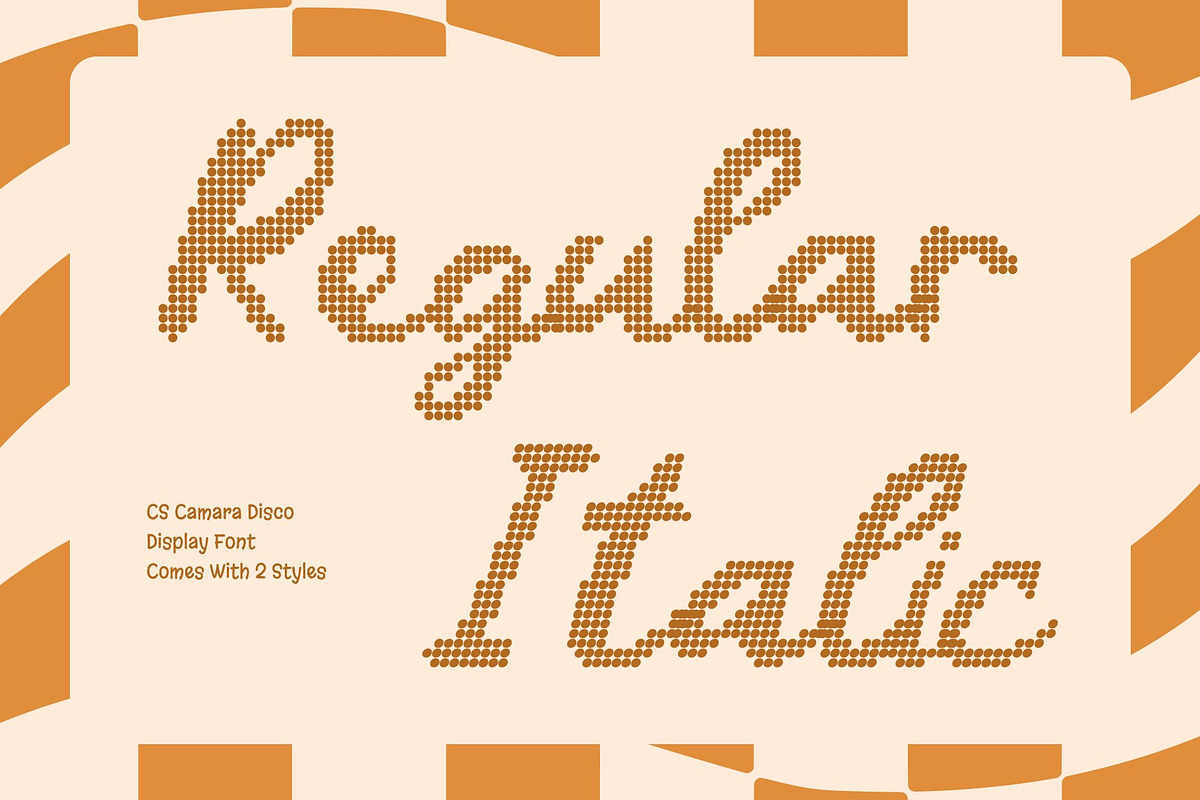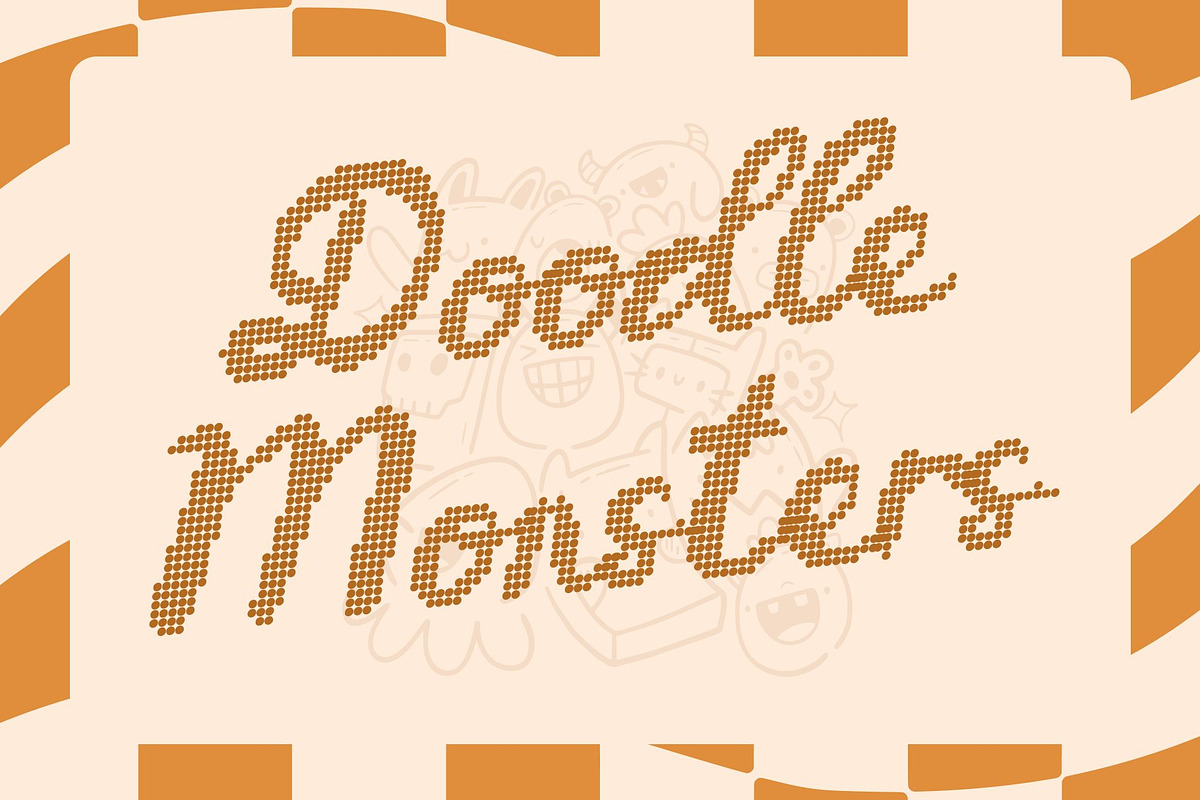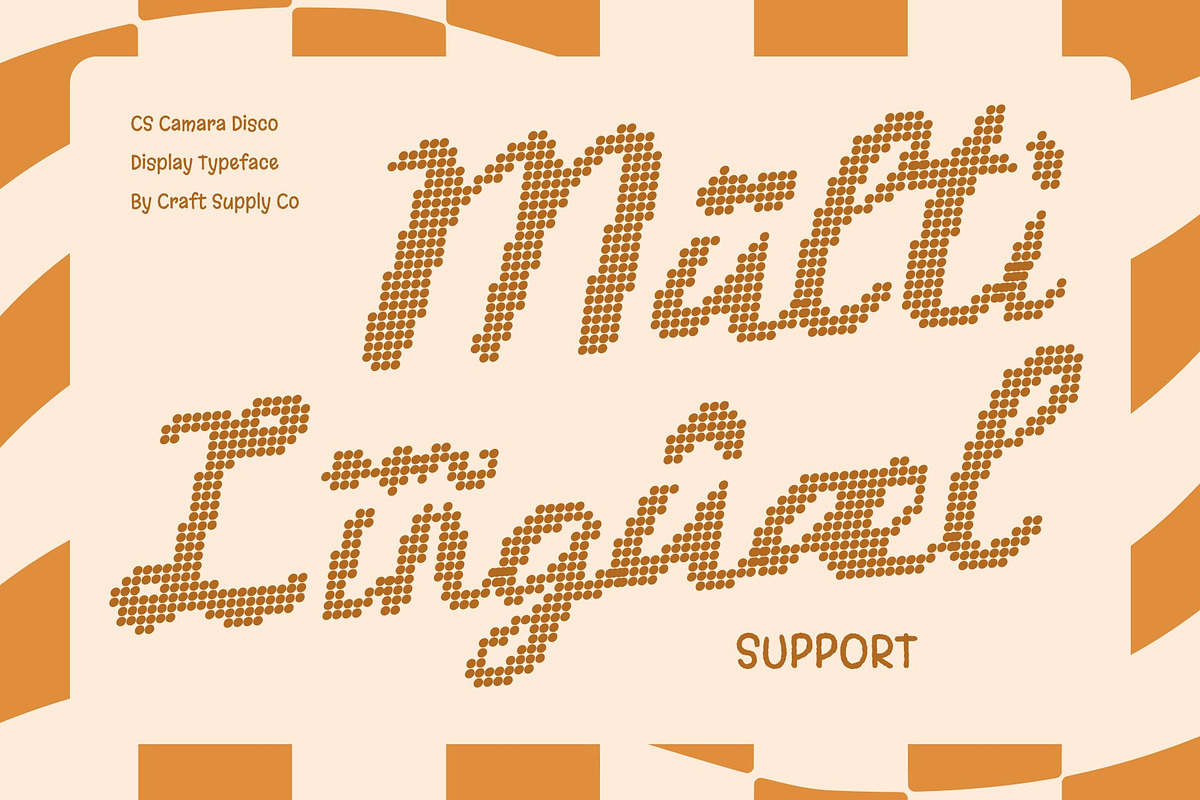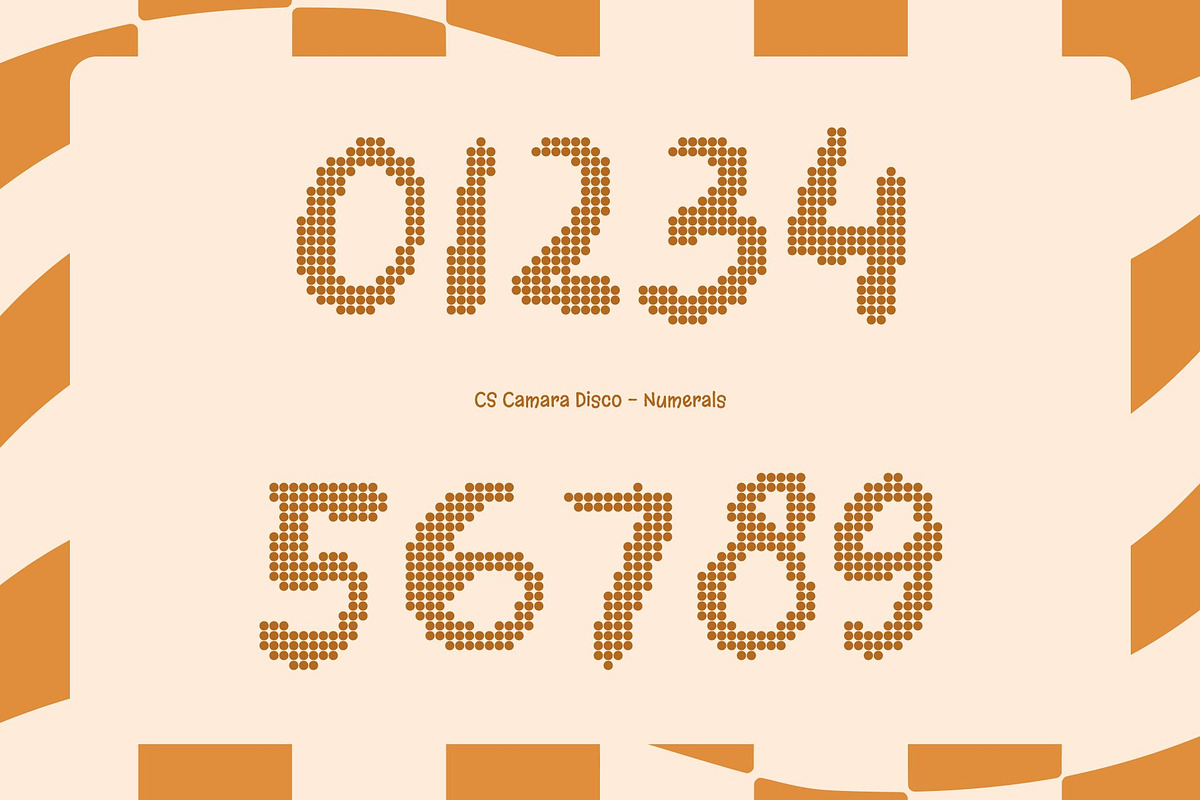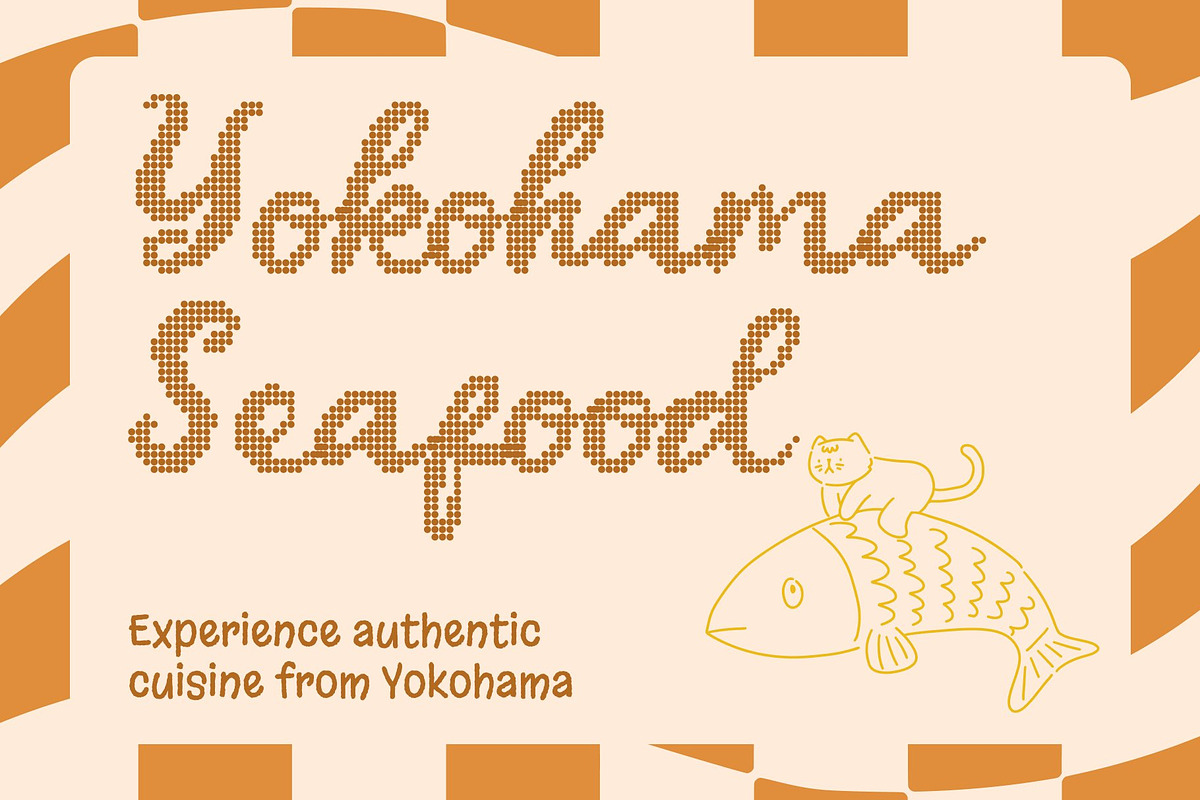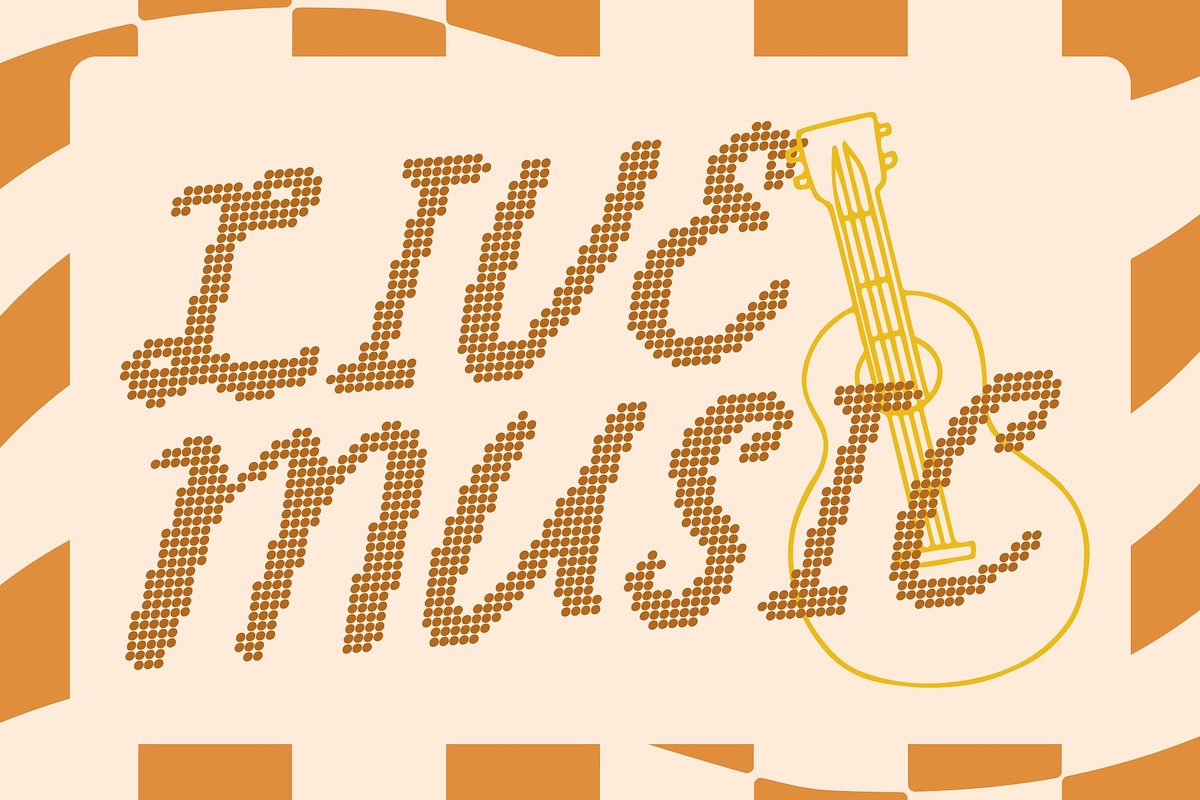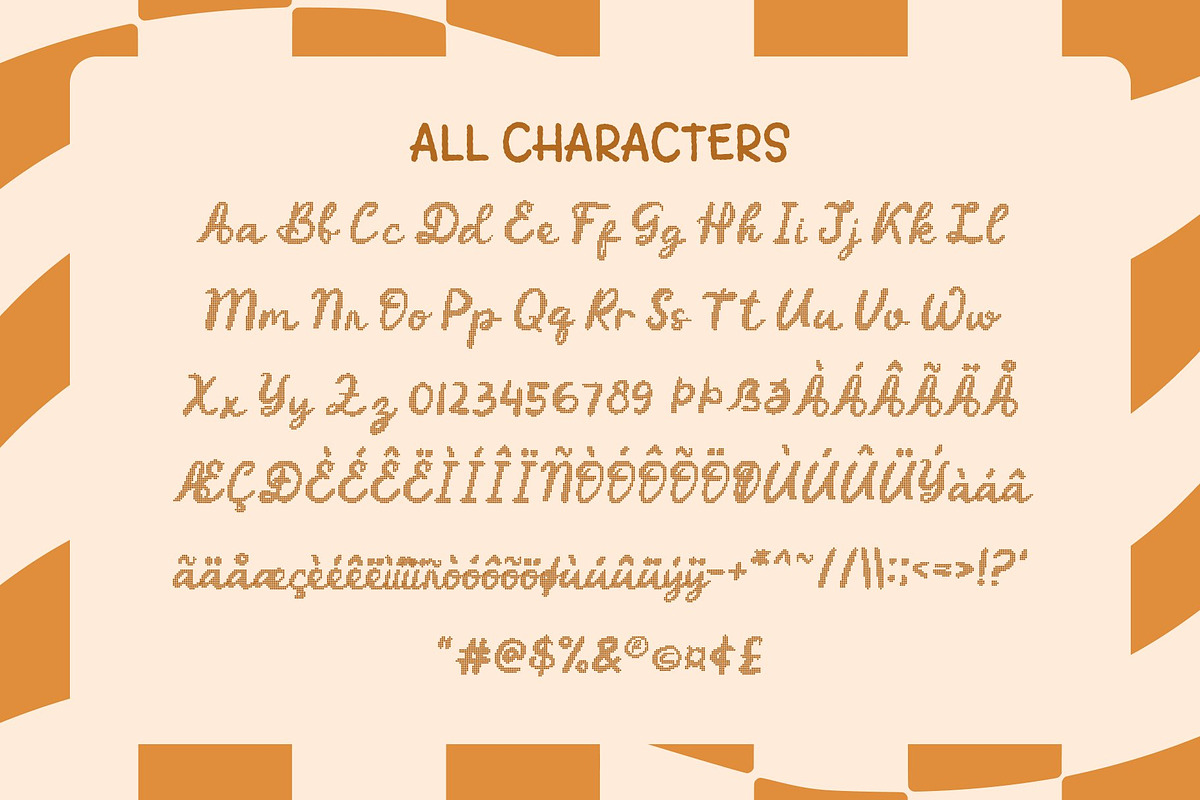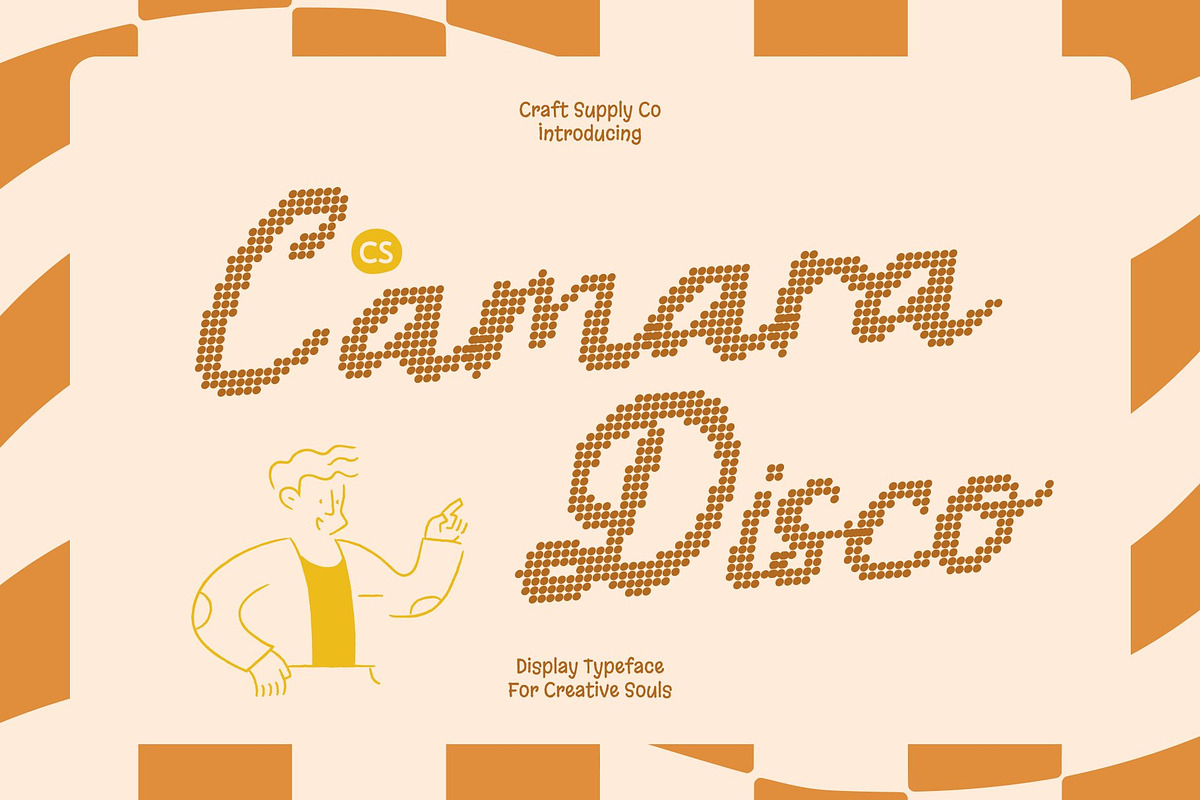
CS Camara Disco
CS Camara Disco – Graceful Script with Sparkling Artistic Flair
Beauty Handwritten Script with Flowing Charm This is a graceful handwritten script that captures the beauty of natural flowing strokes. Its elegant curves and soft rhythm create a charming and expressive personality, making every word feel personal and refined. The fluid movement of the letters adds warmth and sophistication to any design.
Artistic Disco with Refined Details Enhanced with disco-inspired dotted accents, this font transforms elegant handwriting into a luminous visual experience. The glowing details highlight each curve and connection, creating the illusion of sparkling strokes dancing across the page like lights on a glamorous dance floor.
Sophisticated Style for Elegant Visuals The combination of artistic handwriting and radiant disco texture produces a style that feels both luxurious and lively. It maintains readability and grace while introducing a festive, glowing atmosphere perfect for designs that want elegance with a creative twist.
Perfect for Luxury and Expressive Branding This font shines in fashion branding, wedding invitations, beauty packaging, editorial layouts, and stylish social media graphics. Its refined yet expressive character makes it ideal for projects that seek to blend sophistication with joyful, eye-catching flair.
CS Camara Disco Regular
CS Camara Disco Italic